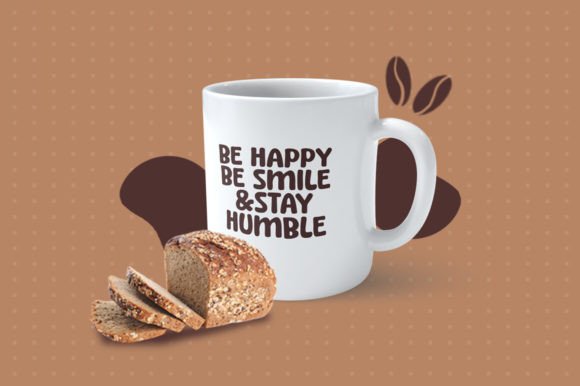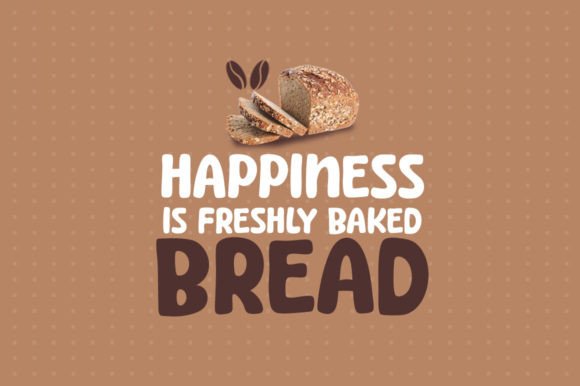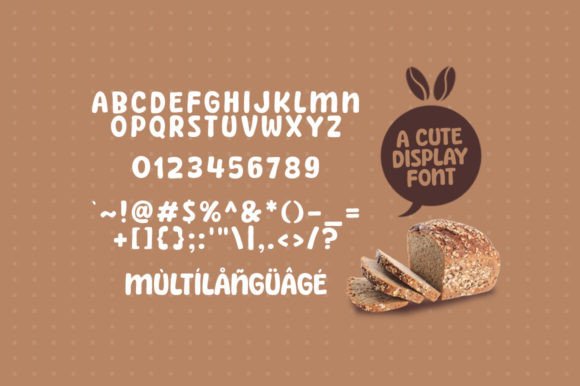
Bread Coffee Font: The Perfect Addition to Your Design Collection
Are you a designer or crafter looking for a modern and cute display font to elevate your creative projects? Look no further than the Bread Coffee Font! This versatile font is perfect for a wide range of applications, from posters and logos to magazines, book covers, and banners. In this article, we’ll explore the features and benefits of the Bread Coffee Font, and show you how to make the most of this amazing design resource.
What is Bread Coffee Font?
Bread Coffee Font is a modern and adorable display font that is sure to capture your attention. Its unique and playful design makes it perfect for adding a touch of whimsy to your designs. Whether you’re creating a poster, logo, or book cover, this font is sure to make your project stand out from the crowd.
Key Features of Bread Coffee Font
- Modern and Cute Design: The Bread Coffee Font boasts a fresh and contemporary design that is sure to appeal to designers and crafters of all levels.
- Versatile: This font is perfect for a wide range of projects, including posters, logos, magazines, book covers, banners, and more.
- Easily Customizable: The Bread Coffee Font can be easily matched to an incredibly large set of projects, making it a versatile addition to your design collection.
- High-Quality: This font is designed to deliver high-quality results, ensuring that your designs look professional and polished.
Benefits of Using Bread Coffee Font
So why choose the Bread Coffee Font for your design projects? Here are just a few benefits of using this amazing font:
- Adds a Touch of Whimsy: The Bread Coffee Font adds a playful and whimsical touch to your designs, making them more engaging and eye-catching.
- Perfect for Branding: This font is ideal for creating logos, business cards, and other branding materials that require a modern and cute design.
- Eases Design Process: With its versatility and customizability, the Bread Coffee Font makes it easy to create stunning designs in no time.
- Great for Crafters: This font is also perfect for crafters who want to add a personal touch to their projects, such as handmade cards, scrapbooking, and more.
- Experiment with Different Sizes: The Bread Coffee Font looks great in a variety of sizes, so don’t be afraid to experiment and find the perfect size for your project.
- Pair it with Other Fonts: This font pairs well with a range of other fonts, so try combining it with different fonts to create a unique and eye-catching design.
- Add it to Your Brand Kit: If you’re a business owner or marketer, consider adding the Bread Coffee Font to your brand kit to ensure consistency across all your marketing materials.
| Font Name | Bread Coffee Font |
| Author | si.jalembe |
In conclusion, the Bread Coffee Font is a modern and cute display font that is perfect for designers and crafters of all levels. Its versatility, customizability, and high-quality design make it an excellent addition to any design collection. Whether you’re creating posters, logos, magazines, or book covers, this font is sure to make your project stand out from the crowd. So why wait? Download the Bread Coffee Font today and start creating stunning designs that will leave a lasting impression!